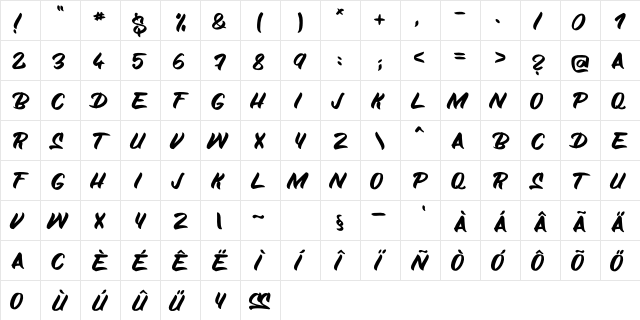
Sign Hand Regular
Design Context for Sign Hand Typeface
Sign Hand brings a calligraphic fluidity to the page — its connecting strokes and expressive curves give it an unmistakably human quality.
Font Pairing: Combine Sign Hand with a simple geometric sans for maximum contrast — the tension between flowing curves and clean structure is a classic typographic pairing.
Pro Tip: Use Sign Hand for short runs of text — names, titles, or taglines. Extended body copy in script faces tires the eye quickly.